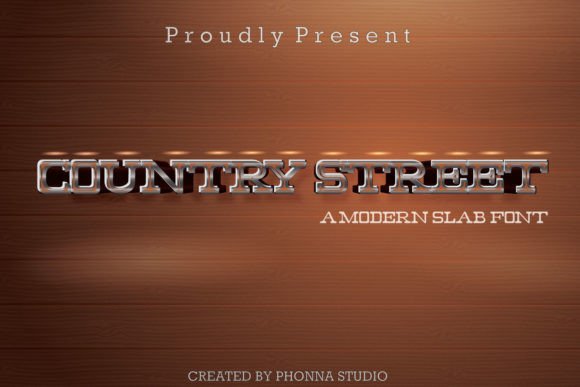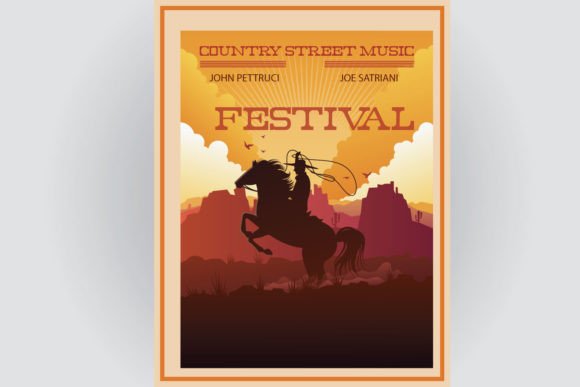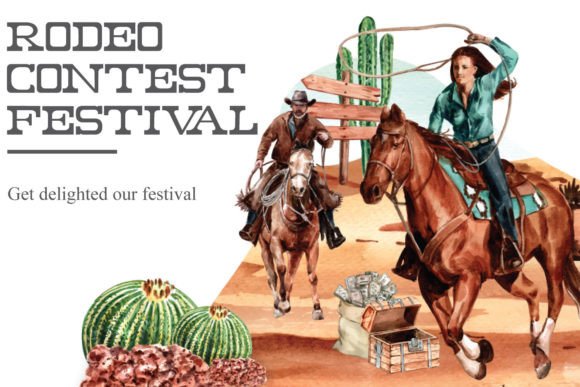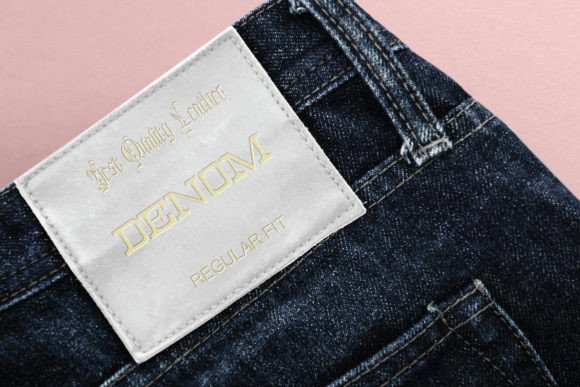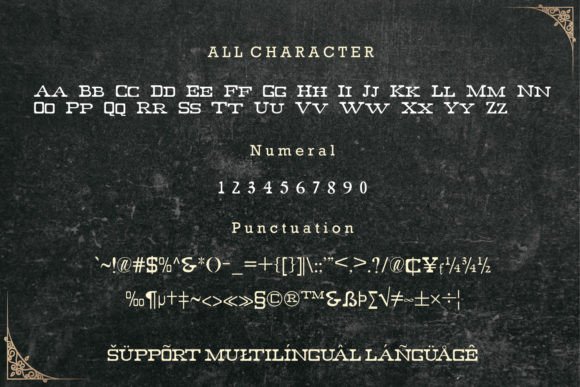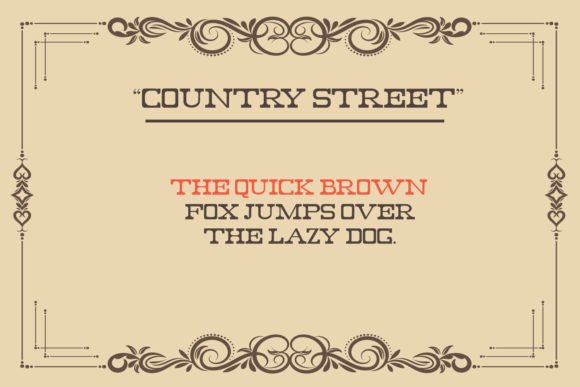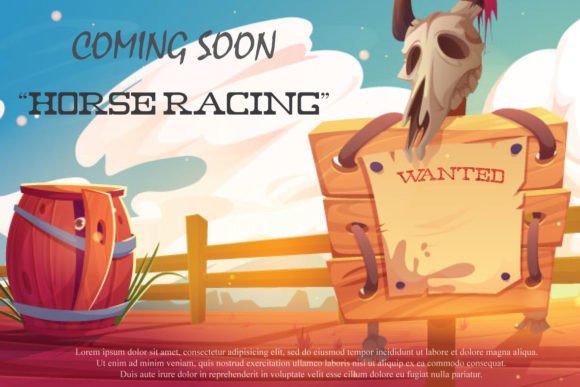
Country Street
Country Street Fonts
Country Street: A Cool and Unique Slab Serif Font
Country Street is a cool and unique slab serif font that serves as an incredible asset to any font library. This versatile typeface has the potential to elevate various creative projects with its distinctive character.
Key Features of Country Street
• Cool Design: Offers distinctive letterforms.
• Unique Style: Brings fresh character to designs.
• Versatile Appeal: Adapts well to numerous contexts.
• Strong Presence: Creates engaging visual impact.
When using Country Street in your designs, keep these tips in mind:
• Try it for headlines to showcase its cool style.
• Use its unique character for distinctive projects.
• Take advantage of its versatility across applications.
• Let its fresh appeal enhance various designs.
To sum up, Country Street is an excellent choice for designers seeking a cool and unique slab serif font. Its versatility makes it perfect for enhancing any design project. Whether you’re creating sophisticated layouts or developing creative projects, Country Street offers the perfect blend of style and distinctiveness.
Furthermore, Country Street’s distinctive design allows it to shine in contexts where both uniqueness and impact are key. The font can elevate your projects with its cool character while maintaining a fresh presence that engages viewers.
In conclusion, Country Street truly captures the essence of unique design in slab serif typography. For those wanting to add a touch of cool sophistication to their work, Country Street can enhance any design with its distinctive style. Ultimately, it’s perfect for designers aiming to make a unique, engaging impact across creative projects.